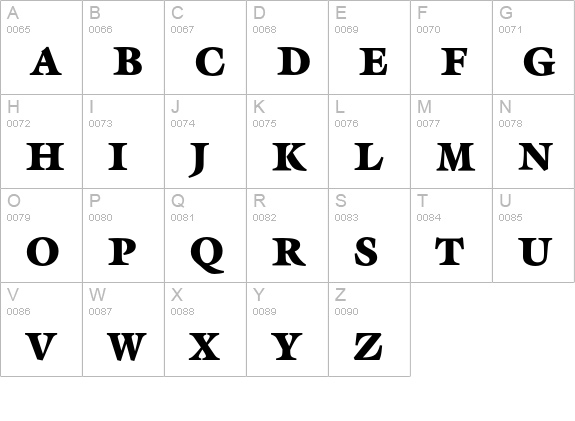
GalliardEF-Ultra is an extreme-weight, display variant in the GalliardEF typeface family \xE2\x80\x94 well suited to extreme display use where maximum visual weight is required.
Introducing GalliardEF-Ultra, a stunning and versatile font that captures attention with its bold and elegant design. This font exudes a sense of sophistication and professionalism, making it perfect for a wide range of creative projects. Featuring clean lines and a stylish yet timeless aesthetic, GalliardEF-Ultra is the epitome of modern elegance. Its thick and pronounced letterforms command attention, while its subtle and refined curves add a touch of grace. Whether used for headlines, titles, or body text, this font effortlessly elevates any design it is used in. But what truly sets GalliardEF-Ultra apart is its remarkable attribute - it is free! That's right, this extraordinary font is freely available to download at FontsMarket.com. Now, designers, typographers, and artists can enjoy the beauty and versatility of GalliardEF-Ultra without any cost. This accessibility ensures that creativity knows no bounds, and everyone can incorporate this exceptional font into their projects. With GalliardEF-Ultra, you can truly make a statement. From luxury branding and editorial layouts to websites and social media graphics, this font adds a touch of sophistication and visual impact that is hard to ignore. Its versatility allows it to seamlessly adapt to various design styles and themes, making it a valuable asset in any creative arsenal. So, if you're in search of a font that combines elegance, versatility, and affordability, look no further than GalliardEF-Ultra. Download it now for free at FontsMarket.com and let your creativity soar to new heights. Embrace the power of this captivating font and create designs that leave a lasting impression.